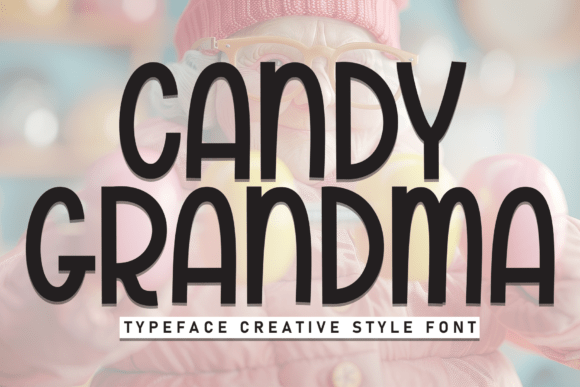
Candy Grandma Font: The Sweetest Addition to Your Design Projects
Are you looking for a font that bursts with fun and creativity? Do you want to add a touch of playfulness and cheerfulness to your designs? Look no further than the Candy Grandma Font! This delightful font is perfect for kids’ projects, party invites, logos, packaging, and anything that calls for a lighthearted and imaginative vibe.
What is Candy Grandma Font?
Candy Grandma Font is a playful, hand-drawn font that features bouncy letterforms and a charming, whimsical design. It’s a font that’s sure to bring a smile to anyone’s face, with its bright and cheerful appearance. The font is perfect for designers who want to add a touch of fun and personality to their work.
Characteristics of Candy Grandma Font
So, what makes Candy Grandma Font so special? Here are just a few of its key characteristics:
- Hand-drawn charm: Candy Grandma Font has a distinctly hand-drawn feel, with each letterform carefully crafted to create a unique and playful design.
- Bouncy letterforms: The font features bouncy, irregular letterforms that give it a lively and energetic feel.
- Cheerful and lighthearted: Candy Grandma Font is the perfect choice for designs that need a playful and cheerful vibe.
- Perfect for kids’ projects: The font’s playful design makes it ideal for kids’ projects, such as children’s books, educational materials, and more.
Uses for Candy Grandma Font
Candy Grandma Font is a versatile font that can be used in a wide range of design projects. Here are just a few ideas to get you started:
- Kids’ projects: The font is perfect for kids’ books, educational materials, and other projects that need a playful and engaging design.
- Party invites: Add a touch of fun and whimsy to your party invitations with Candy Grandma Font.
- Logos and branding: The font’s unique design makes it perfect for logos and branding projects that need to stand out.
- Packaging design: Use Candy Grandma Font to add a playful touch to your packaging designs.
- Social media graphics: The font is perfect for social media graphics, such as Facebook posts, Instagram stories, and more.
Why Choose Candy Grandma Font?
So, why should you choose Candy Grandma Font for your design projects? Here are just a few reasons:
- Unique design: The font’s unique design will help your projects stand out from the crowd.
- Playful and cheerful: Candy Grandma Font adds a touch of fun and playfulness to any design.
- Easy to read: Despite its playful design, the font is easy to read and understand.
- Versatile: The font can be used in a wide range of design projects.
Tips for Using Candy Grandma Font
Here are a few tips for using Candy Grandma Font in your design projects:
- Use it sparingly: While Candy Grandma Font is playful and fun, it can be overwhelming if used too much. Use it sparingly to add a touch of whimsy to your designs.
- Pair it with other fonts: Try pairing Candy Grandma Font with other fonts to create a unique and interesting design.
- Experiment with colors: The font looks great in bright, bold colors. Experiment with different colors to find the perfect combination for your design.
Candy Grandma Font is a playful and charming font that’s perfect for designers who want to add a touch of fun and creativity to their work. With its bouncy letterforms and hand-drawn charm, it’s ideal for kids’ projects, party invites, logos, packaging, and anything that calls for a lighthearted and cheerful vibe. So why not give it a try and see how it can bring joy and imagination to your designs?